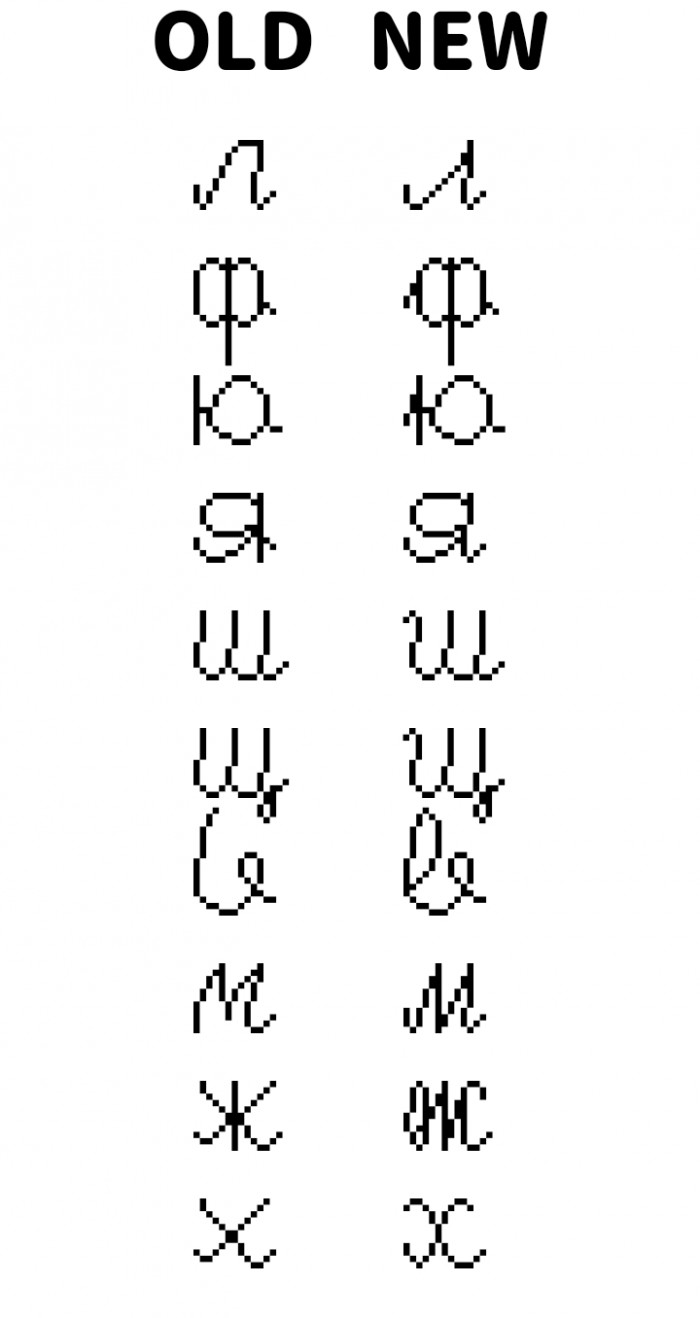
Very cute font. But I have a pretense to your Cyrillic. Why do ф ю я have no slope, while ш щ has almost no slope? It is a serious mistake to do в without a loop. м usually we write more smoothly, almost like two liters л together. Handwritten Ж Х definitely have a different form (take a look on picture), more convenient for writing. Also, horizontal lines inside ю н э letters can be curved downward, but not required.
great pixel/cursive design, kinda reminds me of needlepoint
@Dmitriy Sychiov (Sychoff) Yeah... my Russian calligraphy is bad, but I changed the letters where you saw mistakes